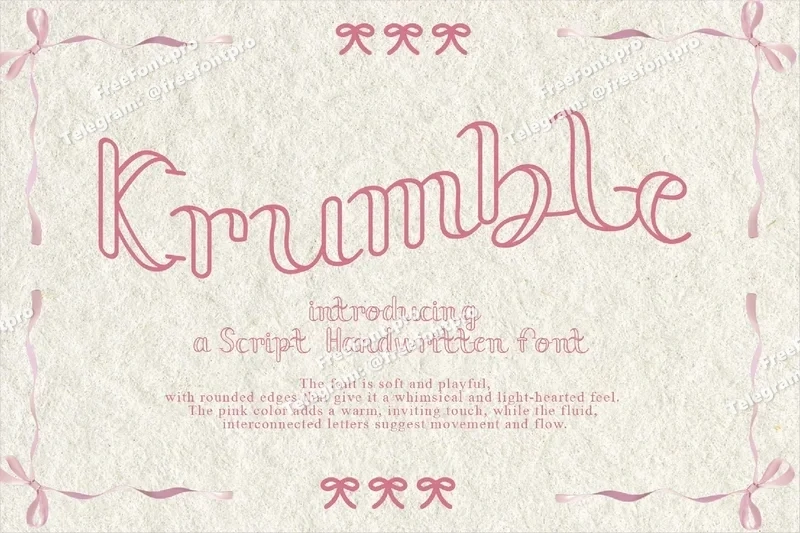
Krumbel – Handwritten Font
Krumble is a playful and quirky font that brings a fun, bubbly energy to any design. With its uneven strokes and lively letterforms, Krumble evokes a sense of joy and spontaneity. Perfect for casual projects, children’s materials, or any design that needs to feel light-hearted and whimsical, Krumble adds a unique, dynamic touch, making your text feel playful and full of character.